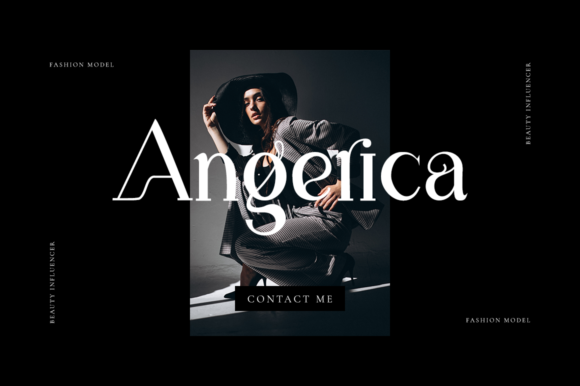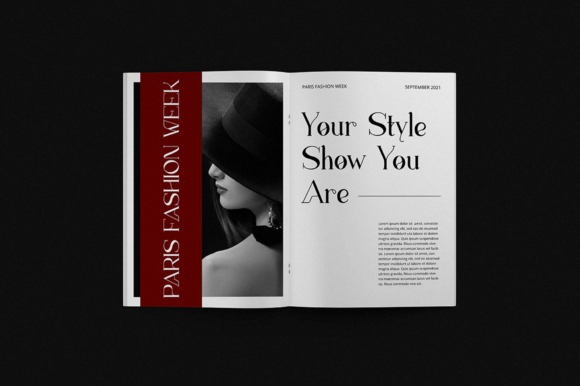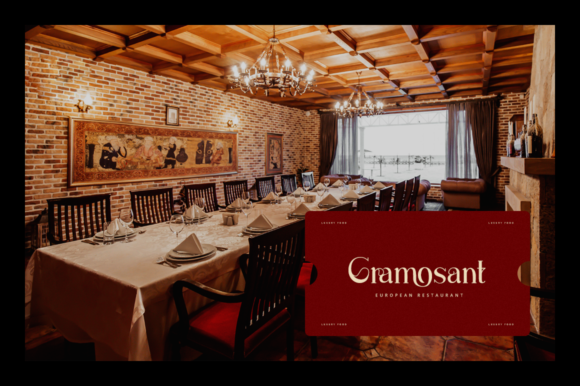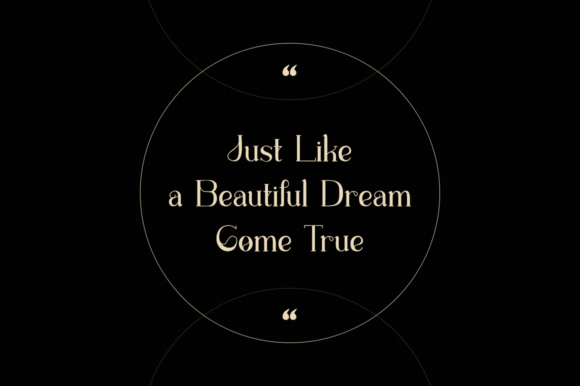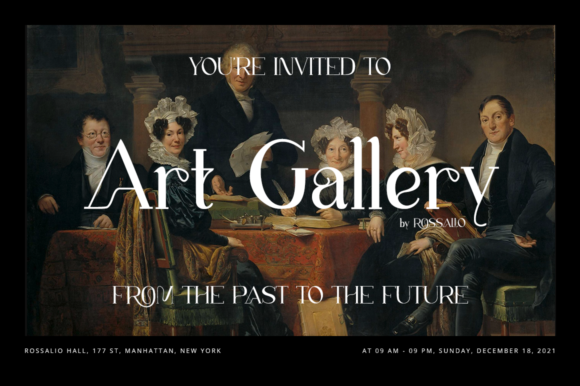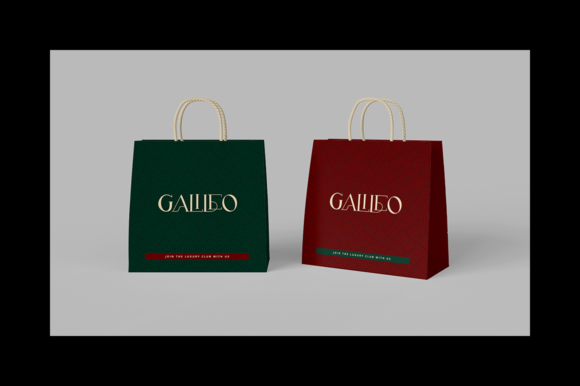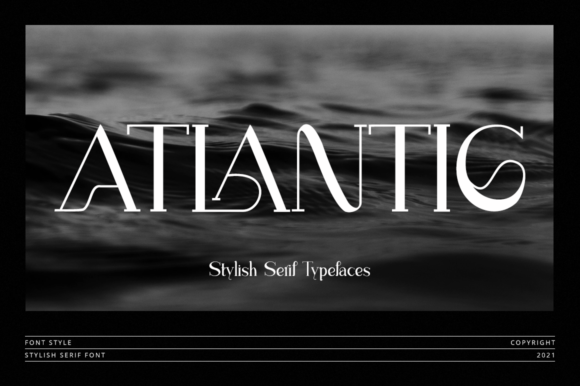
Introducing Atlantic Font: The Ultimate Choice for Designers and Crafters
Are you a designer or crafter looking for a font that is both clean and minimal? Look no further than Atlantic Font. This beautiful serif font is designed to be simple and easy to use, making it the perfect addition to your design toolkit. In this article, we’ll take a closer look at Atlantic Font and explore how you can use it to elevate your craft designs.
What is Atlantic Font?
Atlantic Font is a clean and minimal serif font that is designed to be versatile and easy to use. Its simple and elegant design makes it perfect for a wide range of design projects, from logos and branding to crafts and DIY projects. The font features a classic serif design with a modern twist, making it both timeless and contemporary.
Key Features of Atlantic Font
So, what makes Atlantic Font so special? Here are just a few of its key features:
- Clean and Minimal Design: Atlantic Font features a clean and minimal design that is easy on the eyes. Its simple lines and classic serif design make it perfect for designs where you want to convey a sense of elegance and sophistication.
- Easy to Use: Atlantic Font is designed to be easy to use, even for those who are new to design. Its simple and intuitive design makes it easy to pair with other fonts and design elements.
- Versatile: Atlantic Font is incredibly versatile, making it perfect for a wide range of design projects. Whether you’re working on a logo, a craft project, or a full-scale branding campaign, Atlantic Font is a great choice.
How to Use Atlantic Font in Your Designs
So, how can you use Atlantic Font in your designs? Here are a few ideas to get you started:
- Pair it with Other Fonts: Atlantic Font pairs well with a wide range of other fonts, from bold and modern fonts to elegant and script fonts. Experiment with different pairings to find the one that works best for your design.
- Use it for Headings and Titles: Atlantic Font is perfect for headings and titles, where its clean and elegant design can really shine. Use it to add a touch of sophistication to your design.
- Add it to Your Crafts: Atlantic Font is also perfect for craft designs, such as papercrafts, card making, and scrapbooking. Its simple and easy-to-read design makes it perfect for adding text to your crafts.
Tips for Using Atlantic Font
Here are a few tips for using Atlantic Font in your designs:
- Keep it Simple: Atlantic Font is a simple and elegant font, so keep your design simple and uncluttered. Avoid using too many design elements or fonts, as this can overwhelm the font.
- Experiment with Different Sizes: Atlantic Font looks great in a wide range of sizes, from small and delicate to large and bold. Experiment with different sizes to find the one that works best for your design.
- Use it Consistently: To get the most out of Atlantic Font, use it consistently throughout your design. This will help to create a cohesive and professional look.
Atlantic Font is a beautiful and versatile font that is perfect for designers and crafters. Its clean and minimal design makes it easy to use and pair with other fonts and design elements. Whether you’re working on a logo, a craft project, or a full-scale branding campaign, Atlantic Font is a great choice. So why not give it a try and see how it can elevate your designs?